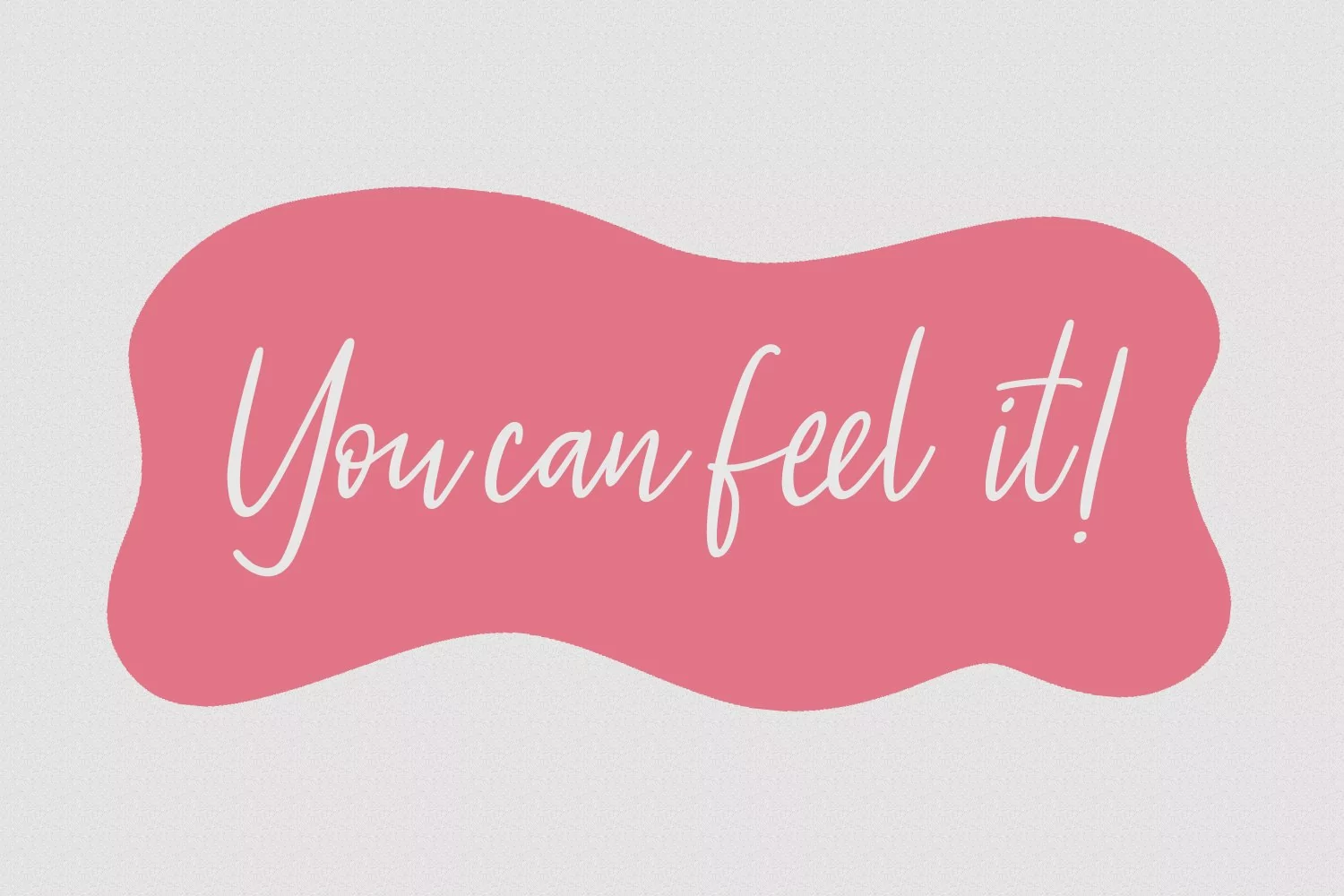
Castella is simply casual script font, with light felt-tip stroke, slant and fun character. It has Opentype features ligatures of character, To give you an extra creative work. Castella script font support multilingual more than 100+ language. This font is good for logo design, Social media, Movie Titles, Books Titles, a short text even a long text letter and good for your secondary text font with sans or serif. Make a stunning work with Castella font.